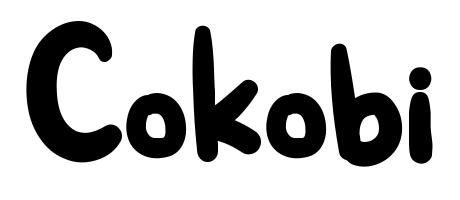
Cokobi
Cokobi is a playful, handwritten-style font. Its rounded letters give it a friendly, approachable feel. The slightly uneven line weight adds to its casual charm. It's perfect for logos, branding, or designs needing a touch of whimsy and approachability. The letters are slightly condensed, enhancing its compact appearance.